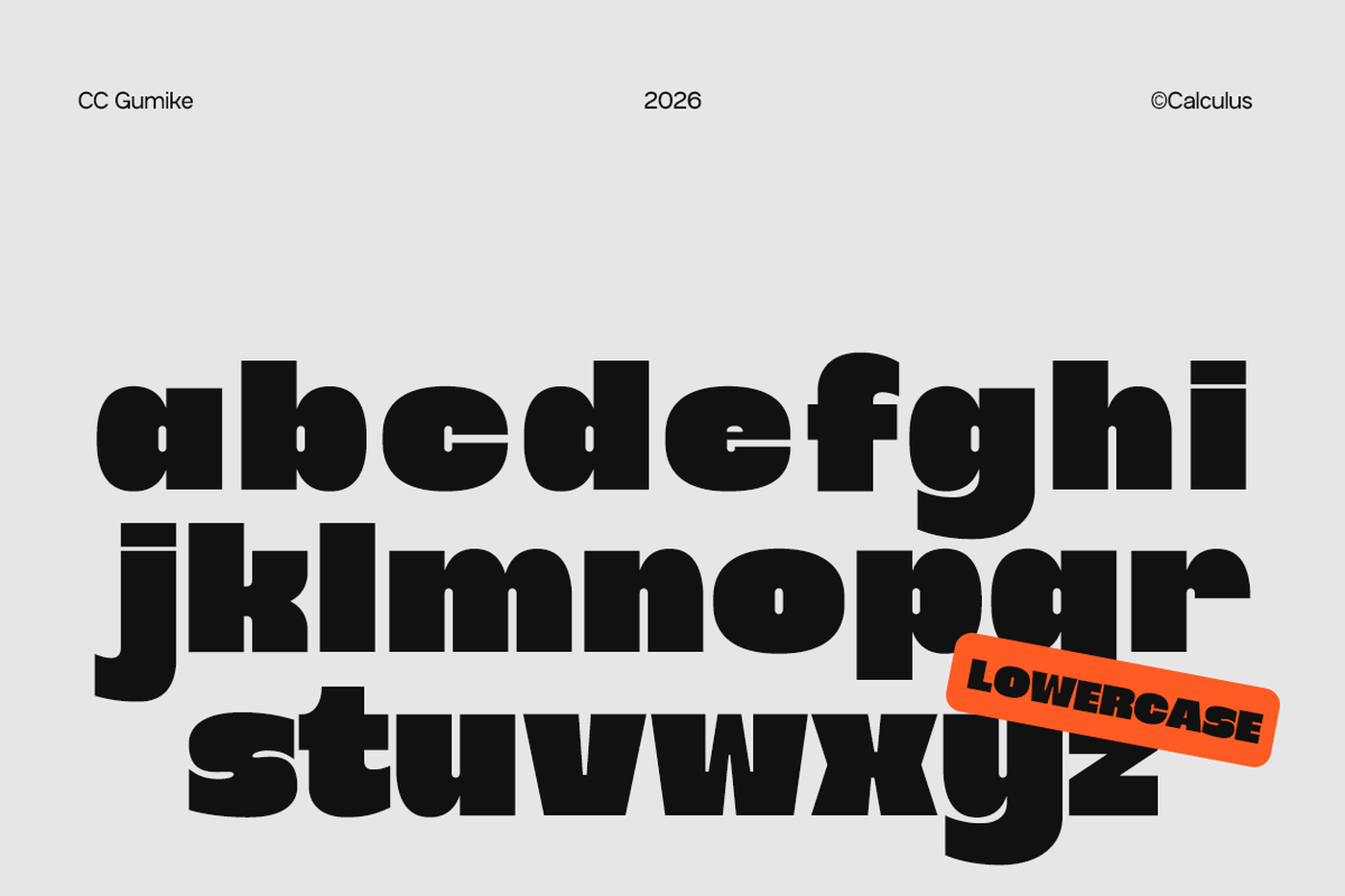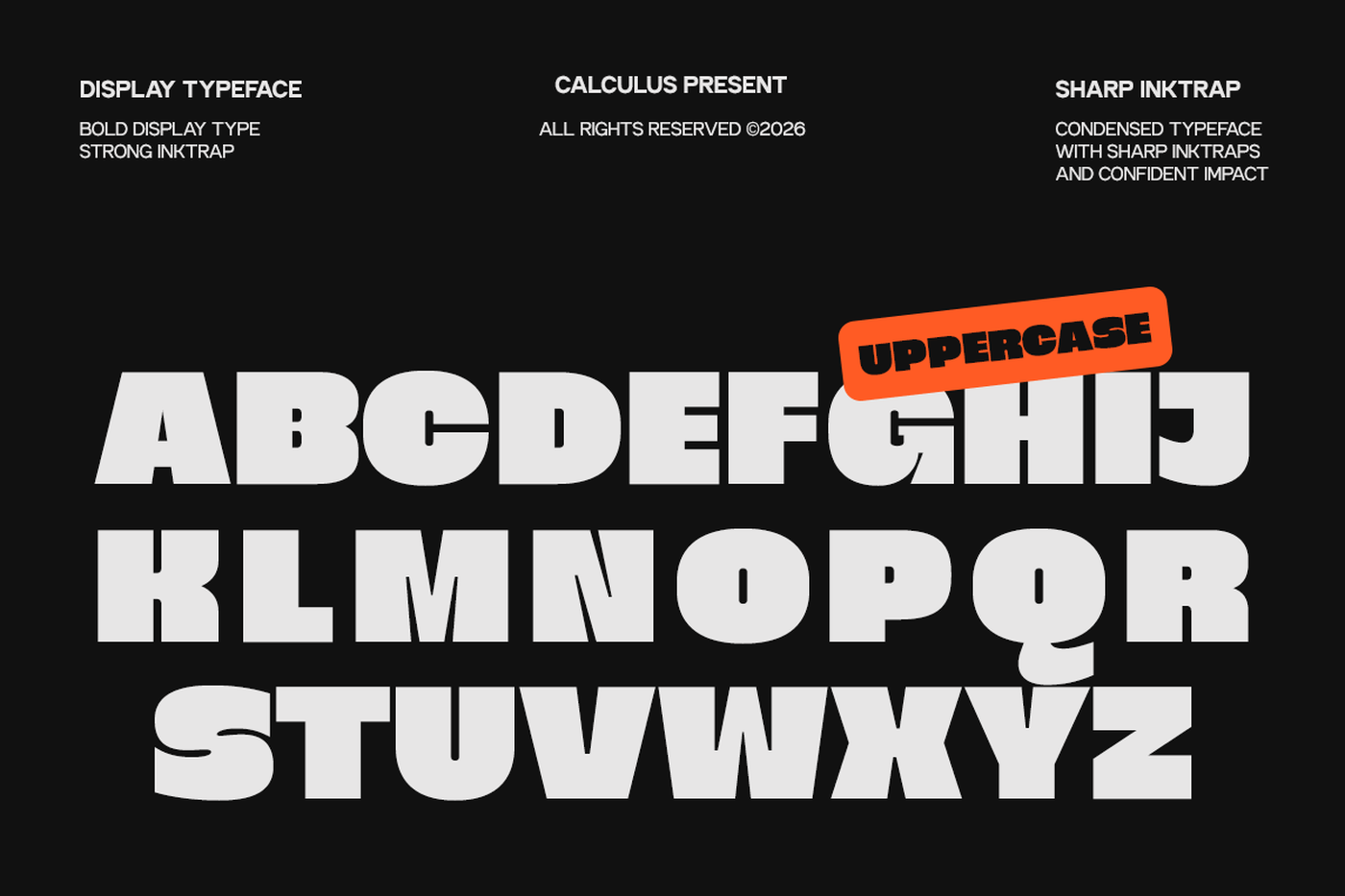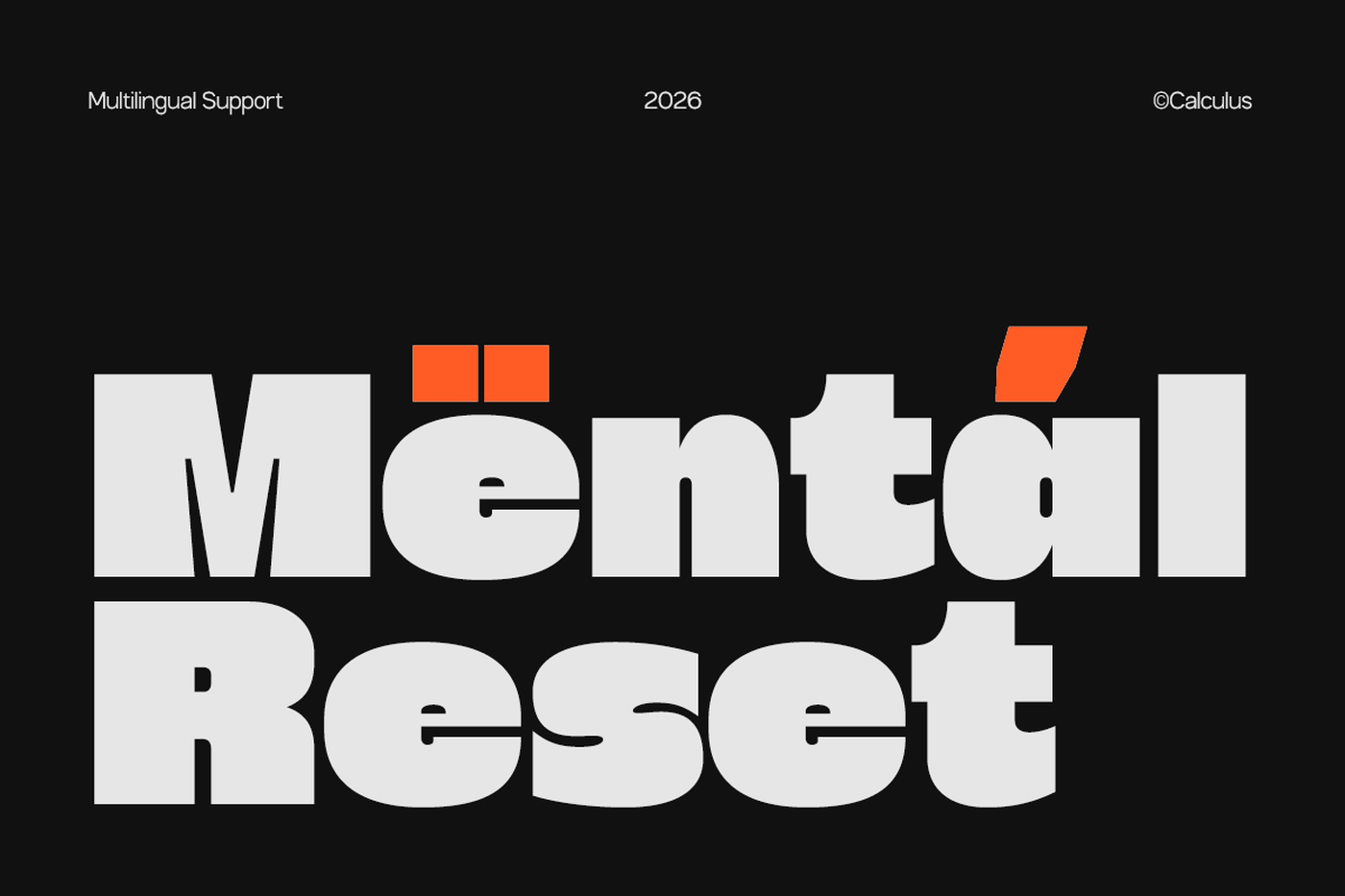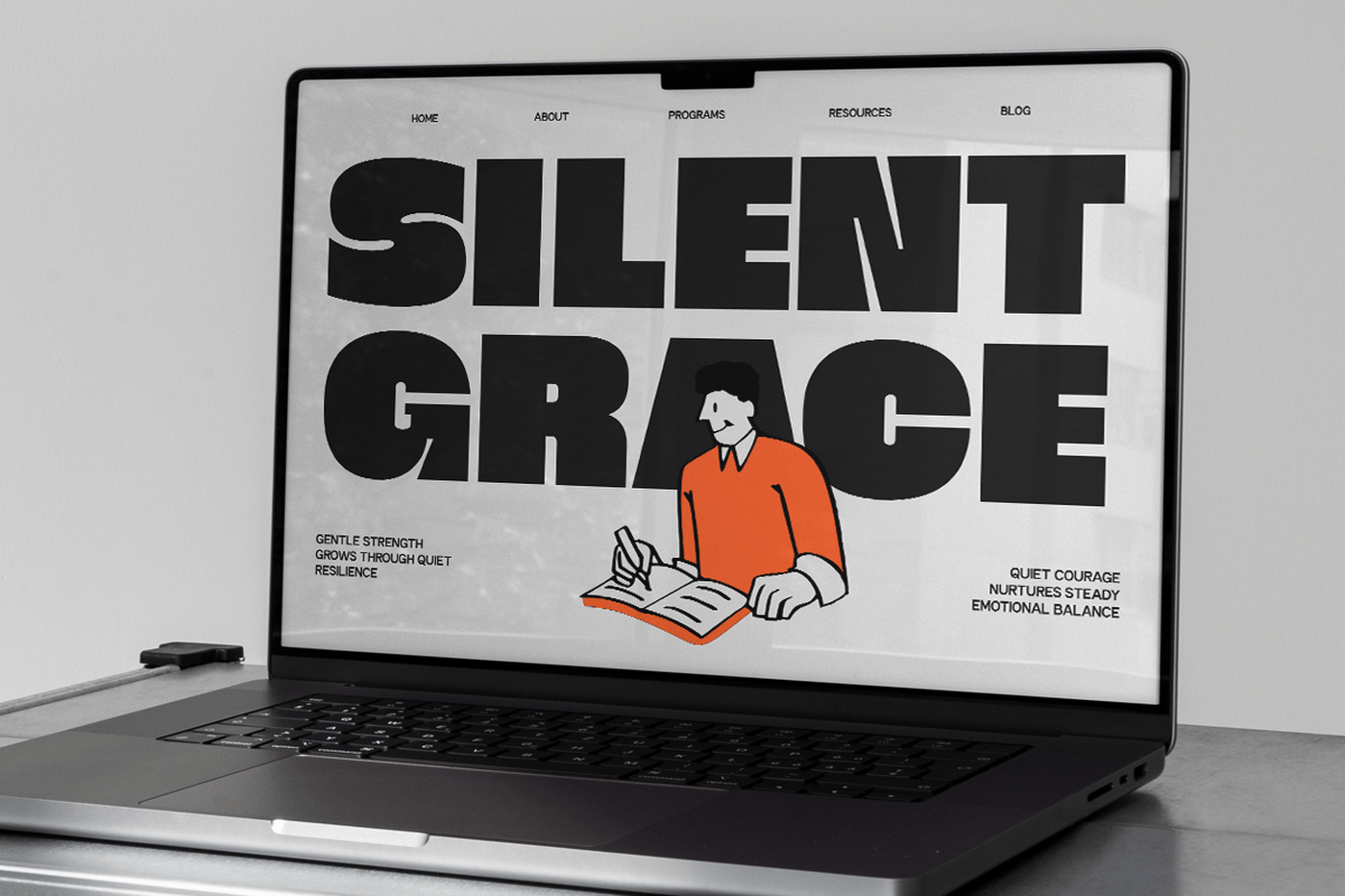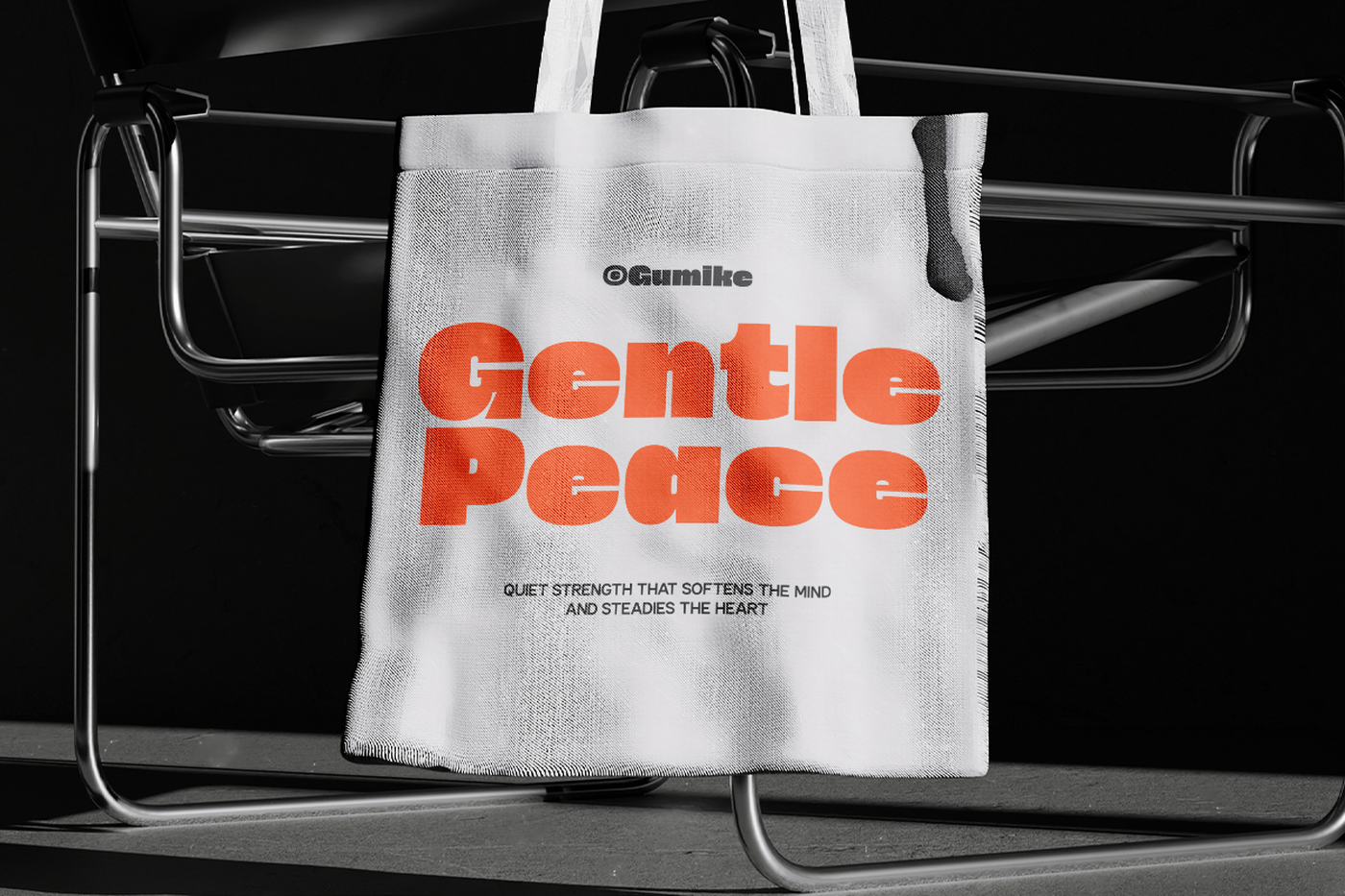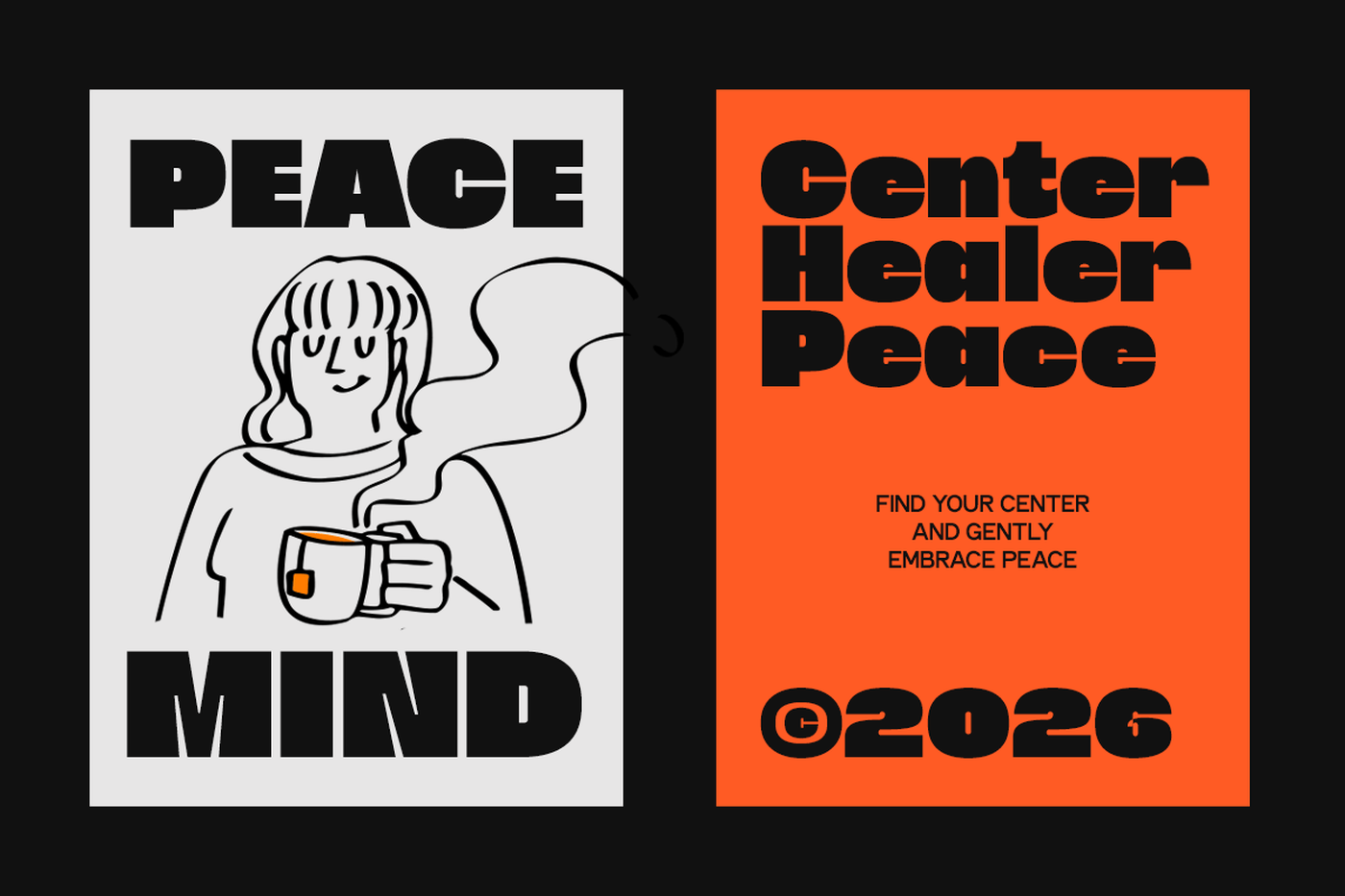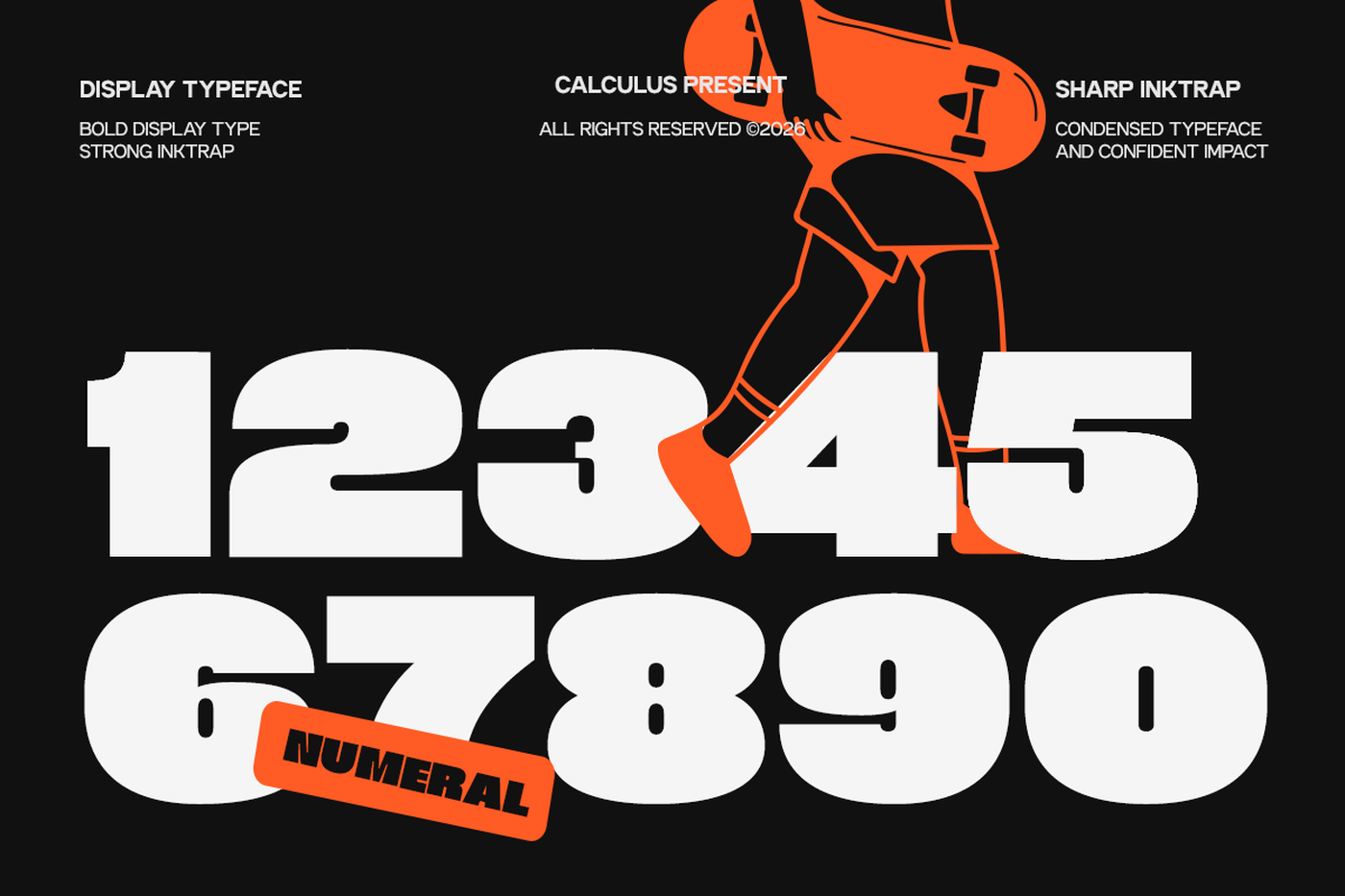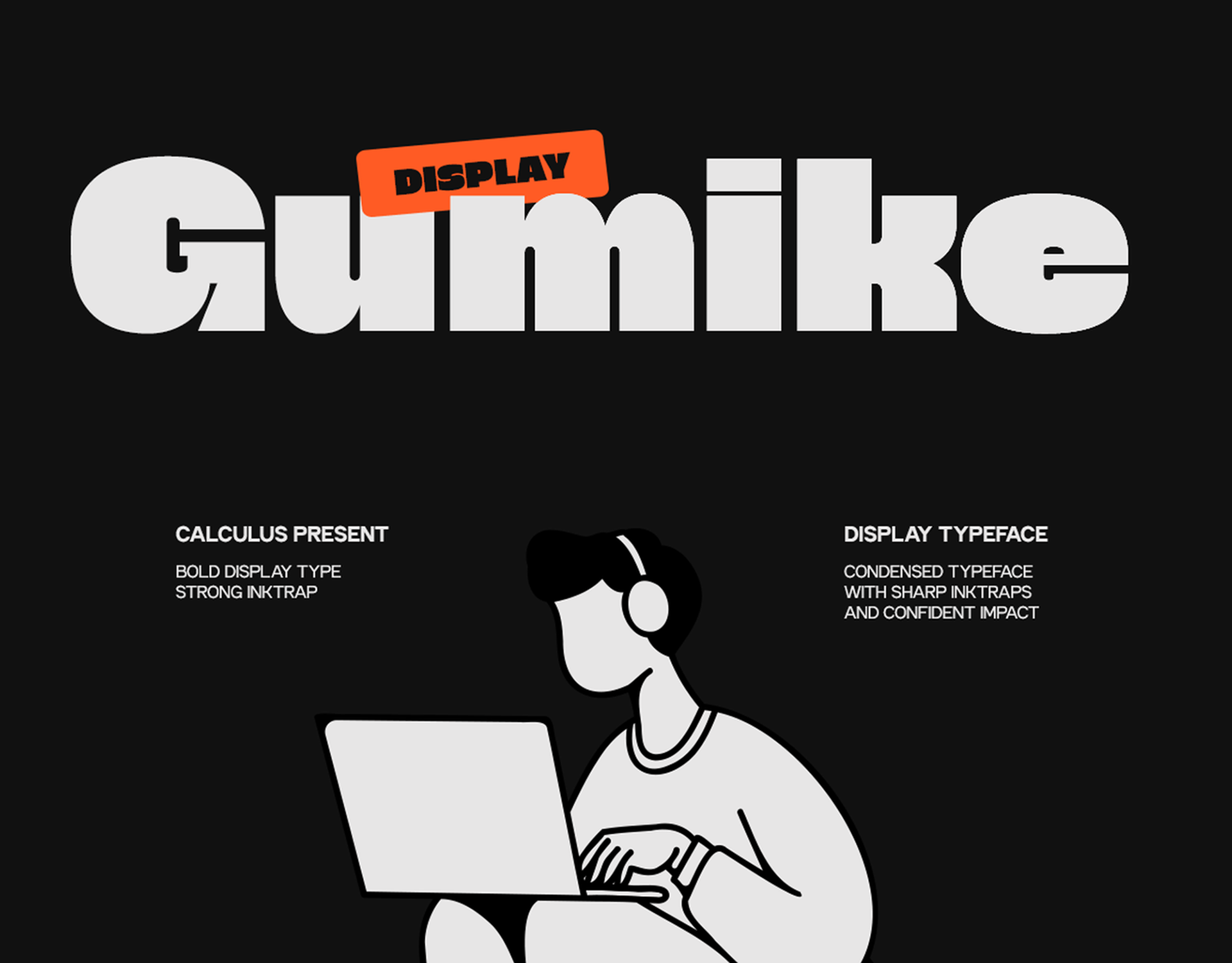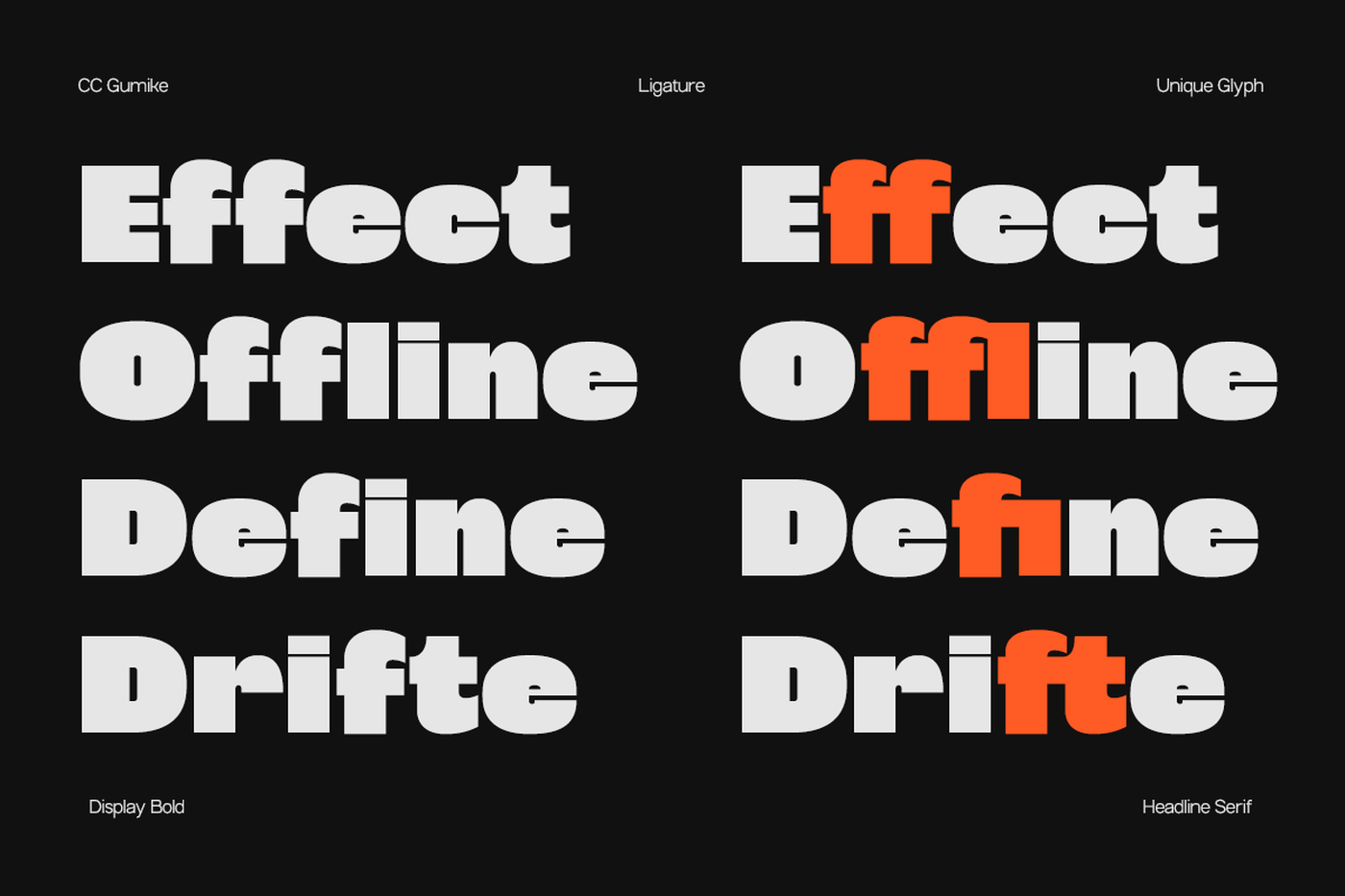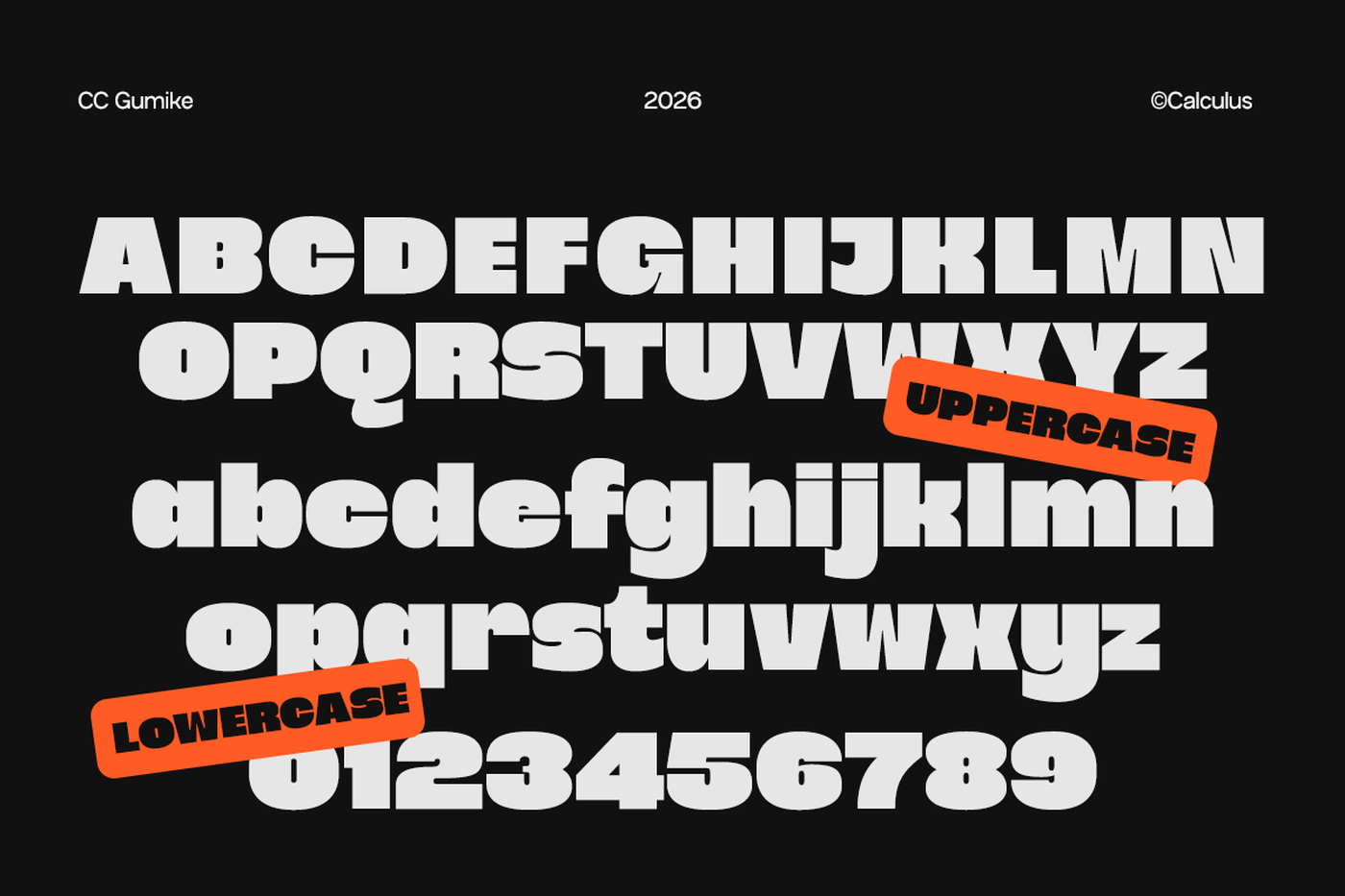
Gumike - Bold Display Sans Font
CC Gumike is a bold display sans typeface designed to create a strong visual presence with a clean and modern attitude. Built with condensed proportions and distinctive sharp inktrap cuts, this font delivers a confident and impactful typographic voice that stands out in large-scale compositions. Its solid structure and contemporary construction make headlines feel powerful, structured, and highly memorable. Carefully crafted to balance readability and expressive character, CC Gumike works perfectly for branding, posters, editorial titles, logo design, packaging, and digital interfaces. The compact letterforms allow efficient space usage while maintaining a bold silhouette, and the sharp detailing enhances a modern professional aesthetic suited for forward-thinking creative projects.
Designer: Calculus Type
Font: Gumike